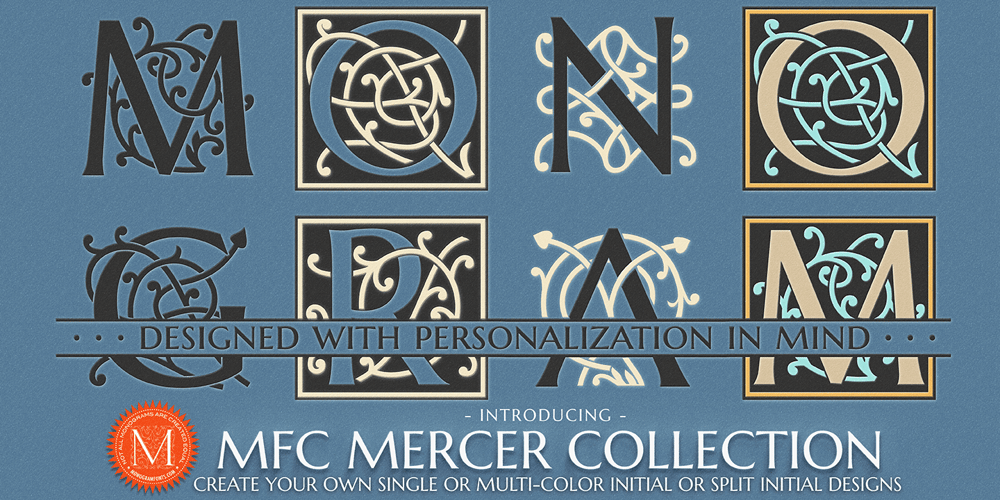
MFC Mercer
MFC Mercer font
MFC Mercer Font Family was designed by Jim Lyles, Brian J. Bonislawsky and published by Monogram Fonts Co.. MFC Mercer contains 13 styles and family package options. The source of inspiration for MFC Mercer is an initials set from the book “Monograms and Alphabets for Combination” by Dollfus, Mieg & Cie, first published in the 1880’s. We’ve taken the original Cameo styled initials that had a somewhat clumsy weighting and rebuilt the design using the capitals from Marcellus Pro by our sister foundry, Stiggy & Sands. We’ve extended the family by including both a Cameo and Non-Cameo version of the Initials, as well as Chromatic versions that can be layered to colorize the designs. But we couldn’t leave it as just an initial typestyle, so we took it a another step, and created Split Monogram Initials with bar splits & extensions for personalization, with the same chromatic set of layers as the full initials version. For filling in the split, we’ve created a custom limited version of Marcellus Pro, called MFC Mercer Split-TinyCap, that contains small caps, numerals, and basic punctuation – scaled down and lined up to layer with the MFC Mercer Split group of fonts. MFC Mercer has loads of different ways in which to layer the different fonts in this collection to create unique custom designs. Download and view the MFC Mercer Guidebooks if you would like to learn a little more. Never before has an initial or split monogram typeface come complete with so many options!